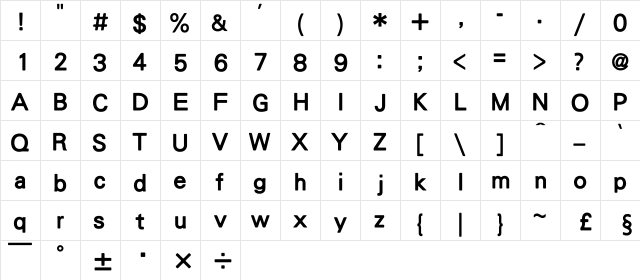
HanWangHeiHeavy Regular Font Preview
HanWangHeiHeavy Regular
Design Context for HanWangHeiHeavy Typeface
HanWangHeiHeavy offers clean, dependable letterforms without strong stylistic allegiance, making it a practical choice for designers who need flexibility.